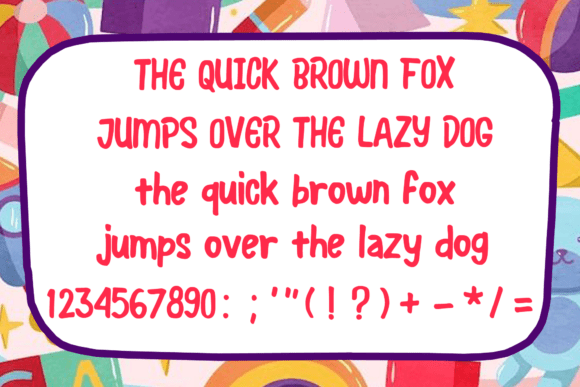
Good Children Font: Elevate Your Designs with a Sense of Joy and Whimsy
In the world of typography, a font can make all the difference in the success of a design project. A well-crafted font can elevate your designs, convey your message, and leave a lasting impression on your audience. Introducing Good Children, a creative display font that infuses a sense of joy and whimsy into your designs. This versatile font is perfect for a wide range of projects, from playful stickers and captivating t-shirt graphics to innovative logo concepts, standout magazine or book covers, colorful cartoons, and even everyday typing tasks.
The Story Behind Good Children Font
Good Children font is more than just a typeface; it’s a tool designed to add striking pops of creativity and fun to your designs. Its unique and playful aesthetic makes it an excellent choice for designers looking to create extraordinary designs that stand out from the crowd. Whether you’re a professional designer or a DIY enthusiast, Good Children font is the perfect companion for your creative journey.
Key Features of Good Children Font
- Creative Display Font: Good Children font is specifically designed to make a statement. Its creative and playful aesthetic makes it perfect for display purposes, such as headlines, titles, and captions.
- Versatile: This font is incredibly versatile and can be used for a wide range of design projects, from stickers and t-shirt graphics to logo concepts, magazine or book covers, and more.
- Elevated Aesthetic Appeal: Good Children font brings an elevated aesthetic appeal to your designs, making them look more professional and visually appealing.
- Playful and Whimsical: This font is infused with a sense of joy and whimsy, making it perfect for designs that require a playful touch.
Use Cases for Good Children Font
Good Children font is perfect for a wide range of design projects, including:
- Playful Stickers: Create eye-catching stickers for kids’ parties, events, or promotions with Good Children font.
- Captivating T-Shirt Graphics: Design unique and playful t-shirt graphics that will make your audience smile.
- Innovative Logo Concepts: Use Good Children font to create innovative and memorable logo concepts for your brand or business.
- Standout Magazine or Book Covers: Create striking magazine or book covers that will grab the attention of your audience.
- Colorful Cartoons: Bring your colorful cartoons to life with Good Children font.
- Everyday Typing Tasks: Even use Good Children font for your everyday typing tasks, such as writing emails or creating documents.
Benefits of Using Good Children Font
Using Good Children font in your designs comes with several benefits, including:
- Unique Aesthetic: Good Children font provides a unique and playful aesthetic that will set your designs apart from the crowd.
- Time-Saving: With Good Children font, you can create professional-looking designs in no time, saving you time and effort.
- High-Quality: Good Children font is a high-quality font that will ensure your designs look professional and visually appealing.
Tips for Using Good Children Font Effectively
To get the most out of Good Children font, here are some tips to keep in mind:
- Use it for Display Purposes: Good Children font is specifically designed for display purposes, so use it for headlines, titles, and captions.
- Experiment with Colors: This font looks great in a variety of colors, so don’t be afraid to experiment and find the perfect color scheme for your design.
- Mix and Match: Try mixing and matching Good Children font with other fonts to create a unique and visually appealing design.
- Keep it Simple: Don’t overcomplicate your design. Keep it simple and let Good Children font do the talking.
In conclusion, Good Children font is a creative display font that infuses a sense of joy and whimsy into your designs. Its unique and playful aesthetic makes it perfect for a wide range of design projects, from playful stickers and captivating t-shirt graphics to innovative logo concepts, standout magazine or book covers, colorful cartoons, and even everyday typing tasks. With its elevated aesthetic appeal, versatility, and ease of use, Good Children font is a must-have for designers looking to create extraordinary designs.
- What is Good Children font? Good Children font is a creative display font designed to add a sense of joy and whimsy to your designs.
- What is Good Children font used for? Good Children font can be used for a wide range of design projects, including playful stickers, captivating t-shirt graphics, innovative logo concepts, standout magazine or book covers, colorful cartoons, and everyday typing tasks.
- Is Good Children font high-quality? Yes, Good Children font is a high-quality font that will ensure your designs look professional and visually appealing.